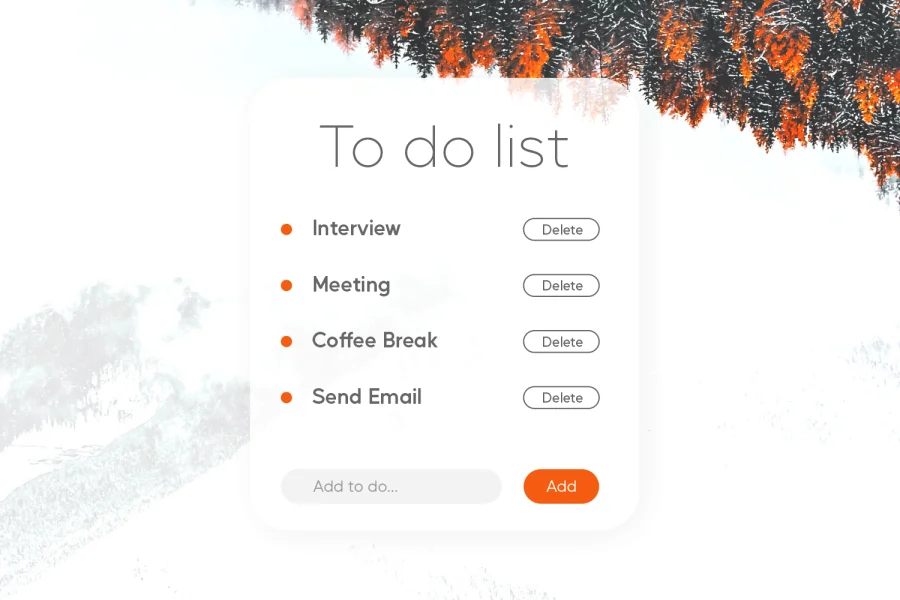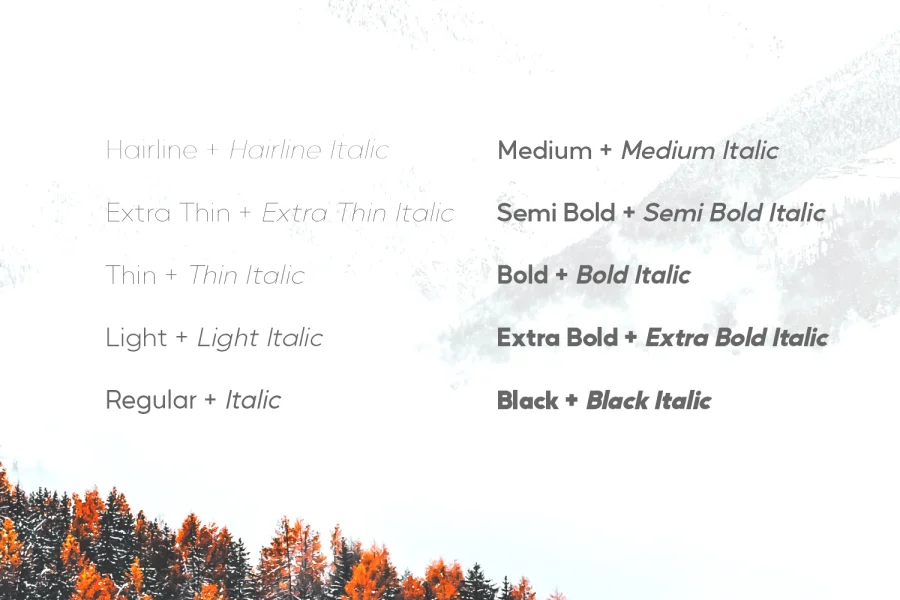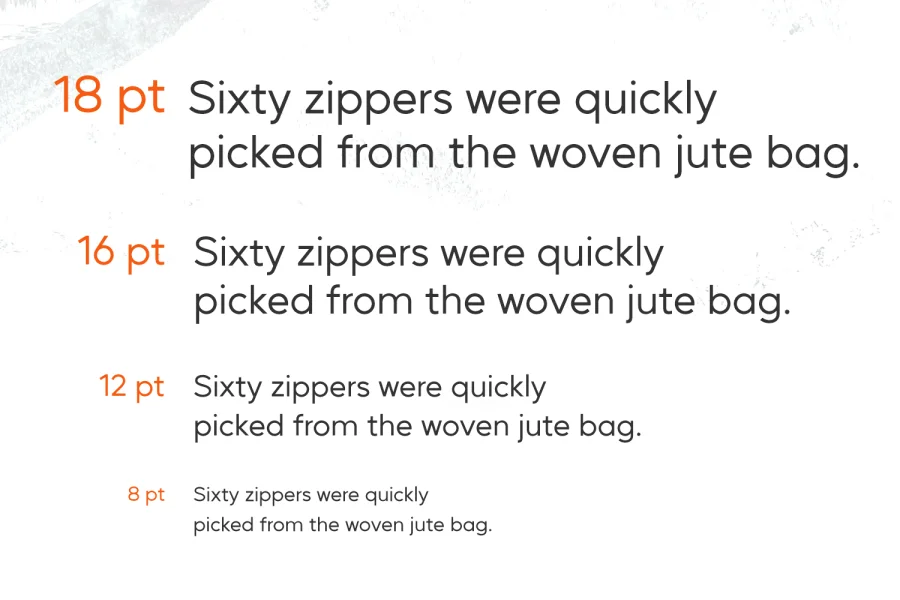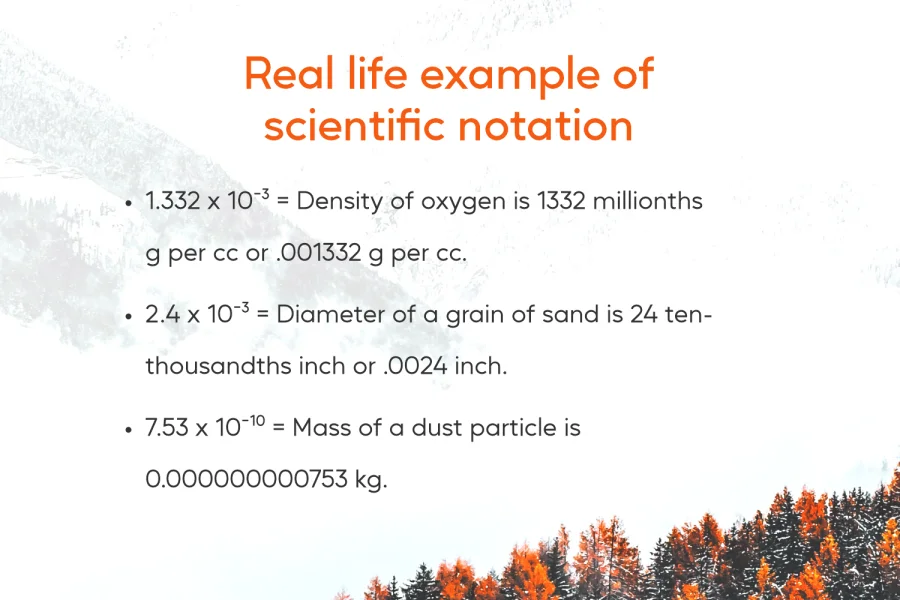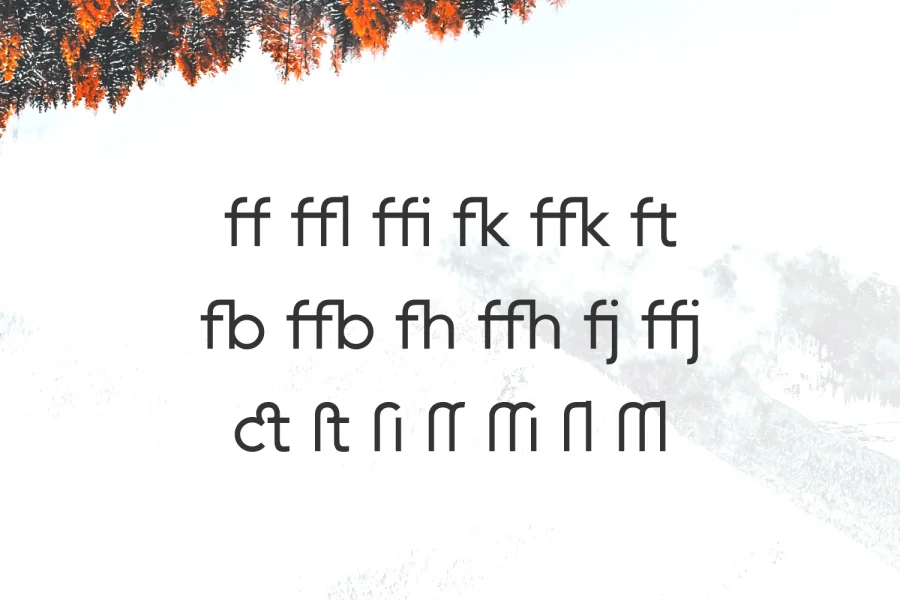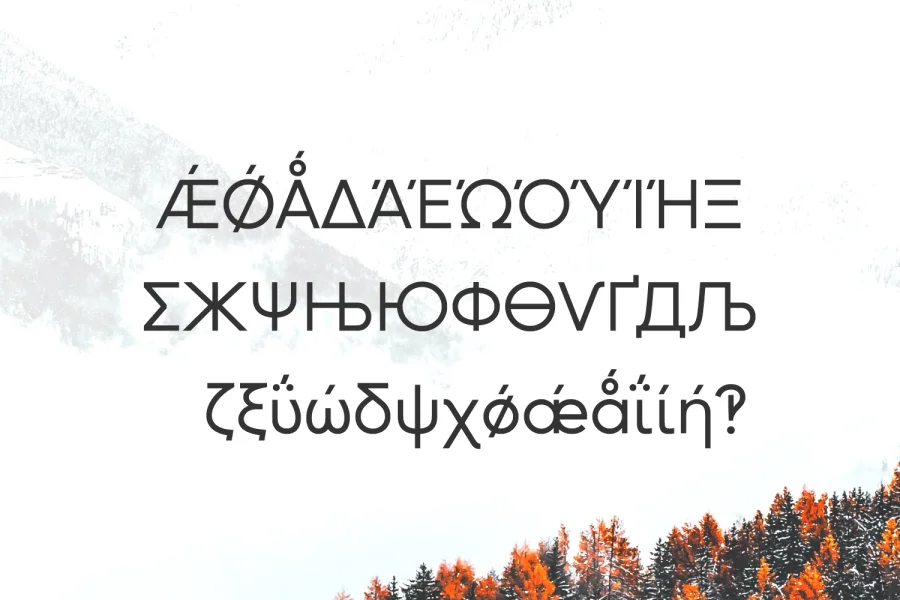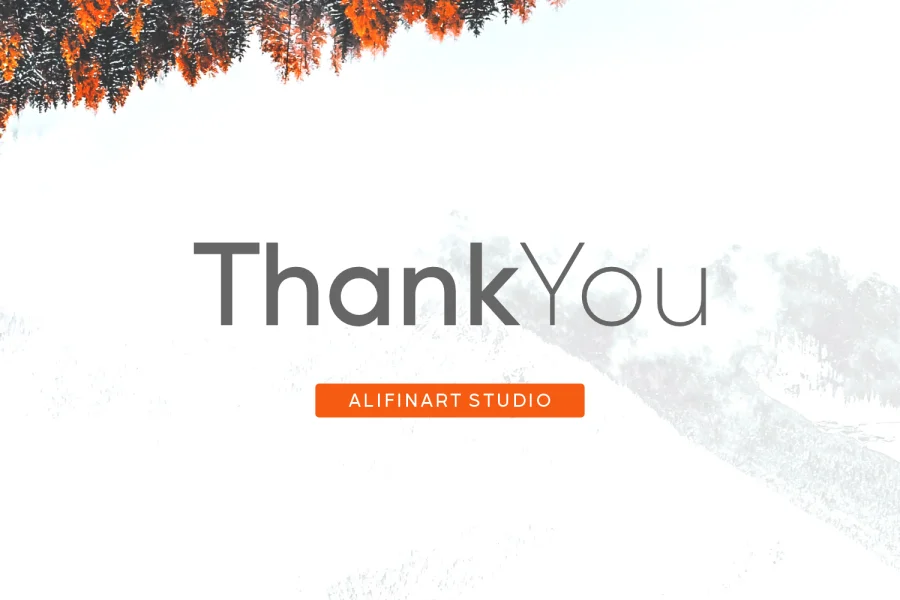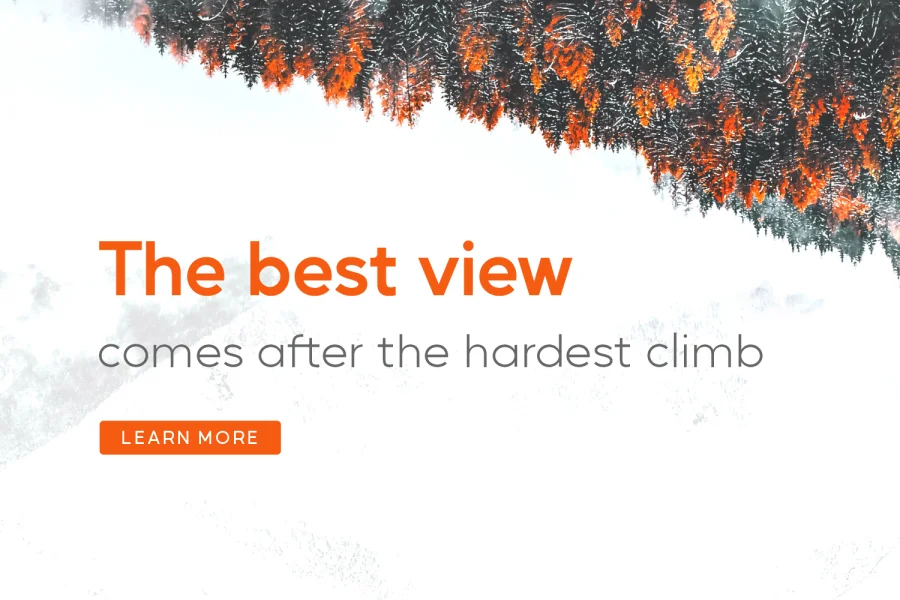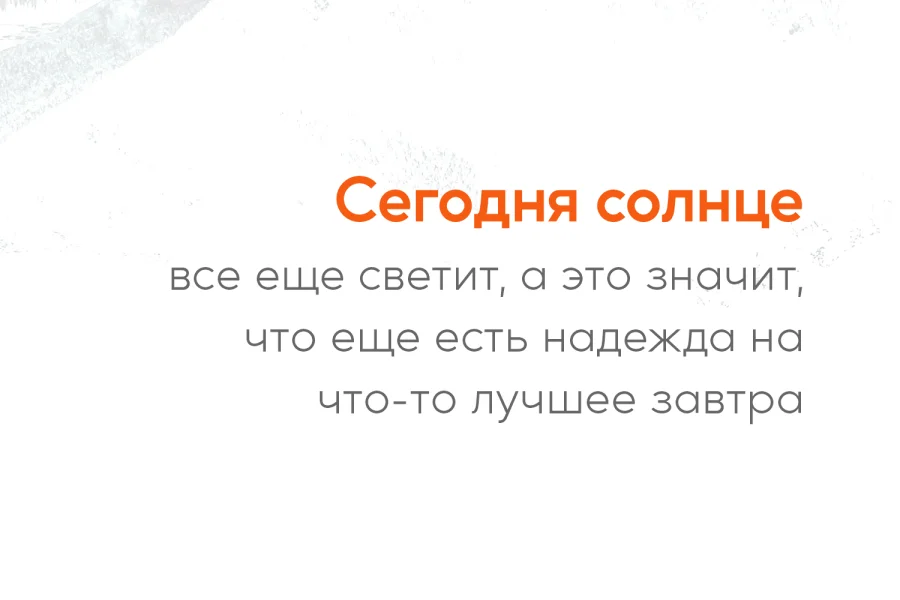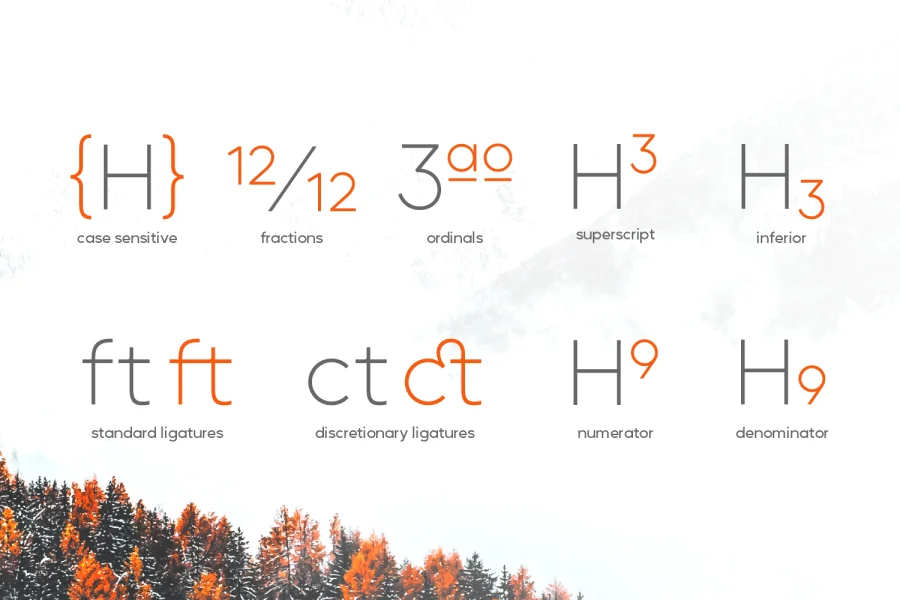
Mustica Pro is a clean and geometric sans serif font that has a number of OpenType features and supports Latin, Cyrillic and Greek languages.
The word of Mustica has the meaning of a crown, even for Asians this word not only a "crown". But also, Mustica has the meaning of brave, clever or wise.
In this regard, the Mustica Pro font was carefully crafted with optimal effort, to make it the most popular modern sans serif.
Mustica Pro has many advantages apart fairly extensive language support. The important features are case sensitive, ligatures, discretionary ligatures, proportional figures, tabular figures, oldstyle figures, proportional oldstyle, fraction, numerator, denominator, superscript (scientific superior), inferior, fractions, alignment colon and others.
With features that the Mustica Pro font has, it is hoped that this font will be the best professional choice.
Moreover, the complete family package includes hairline to black variables and for this reason, Mustica Pro is perfect to serve as the mainstay font for various design and commercial projects.